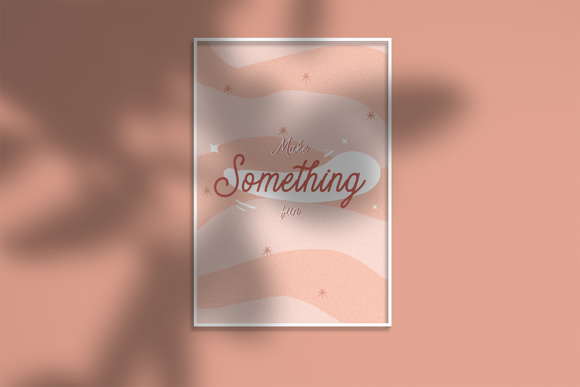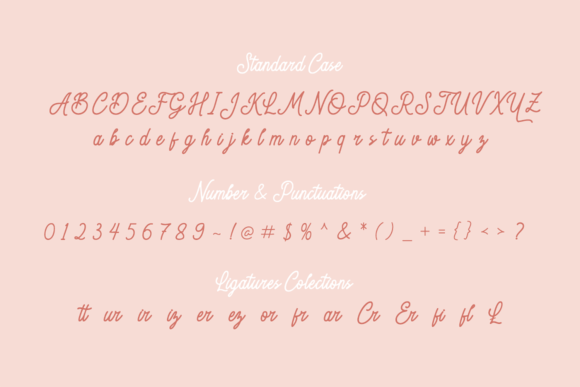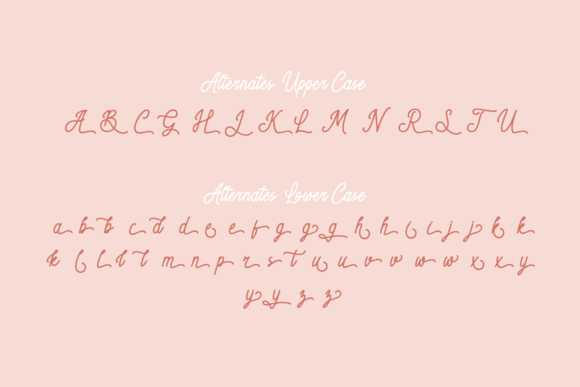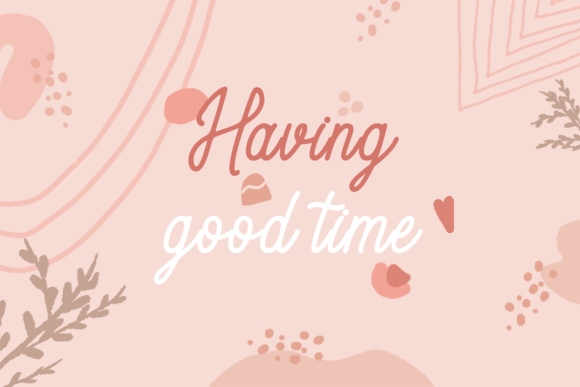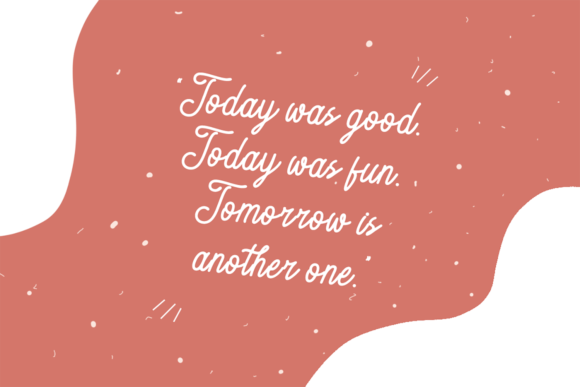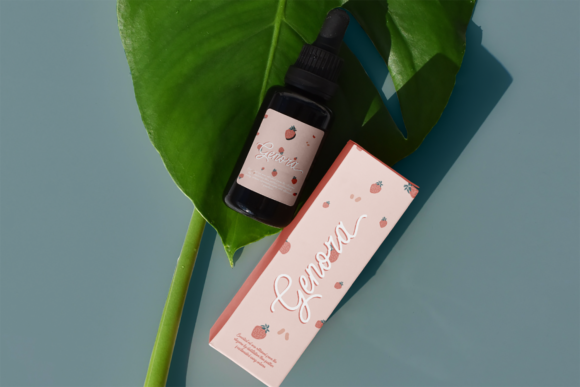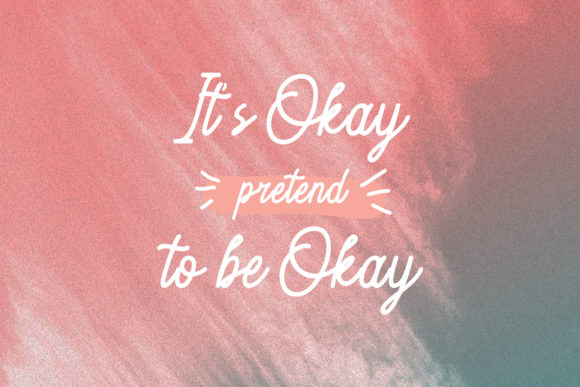
Genora Font
About Genora Font
Genora is a beautiful and vintage styled handwritten font that’s great for delivering any message with confidence, authenticity and charm. This font is PUA encoded which means you can access all glyphs and swashes with ease!